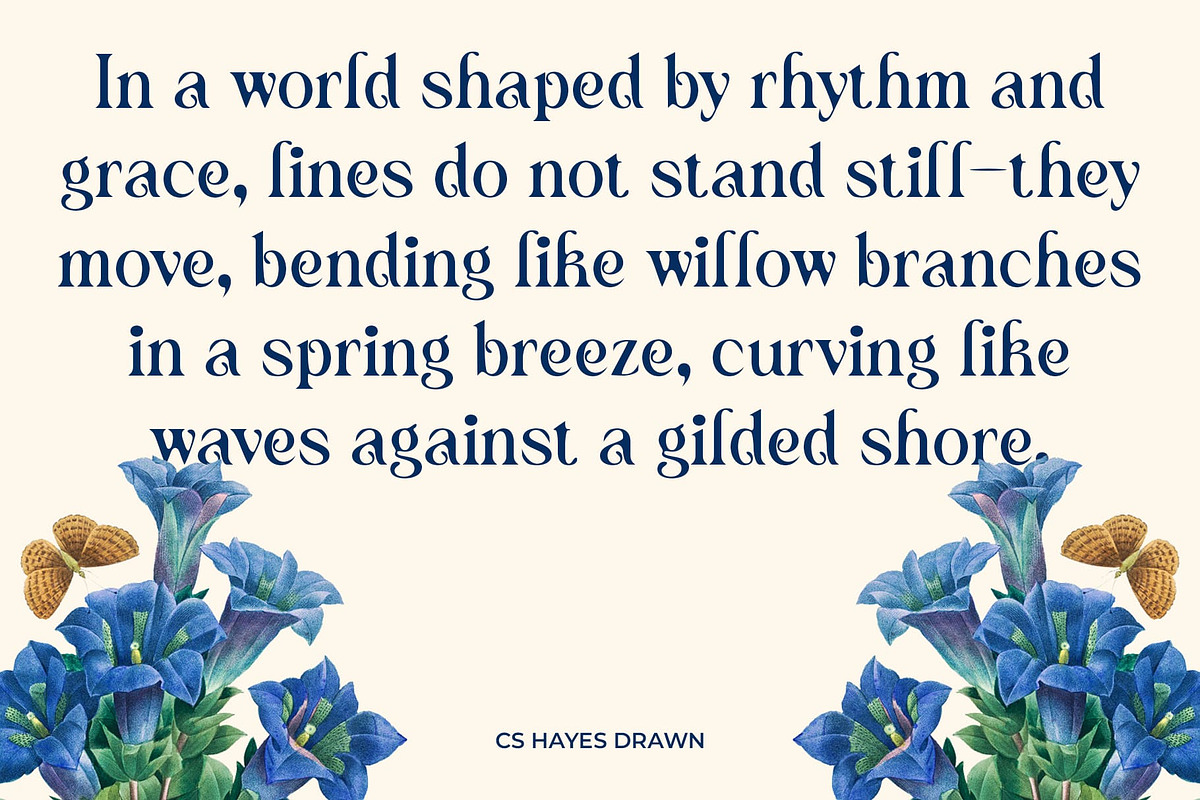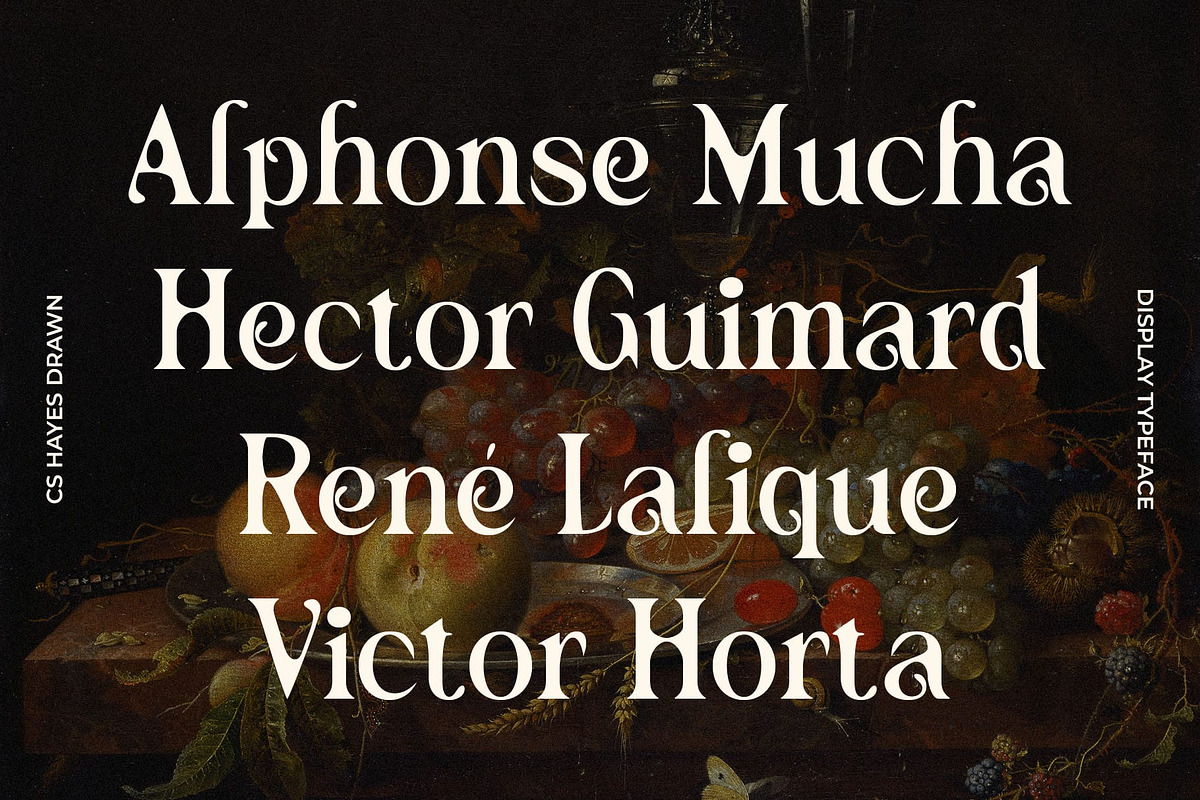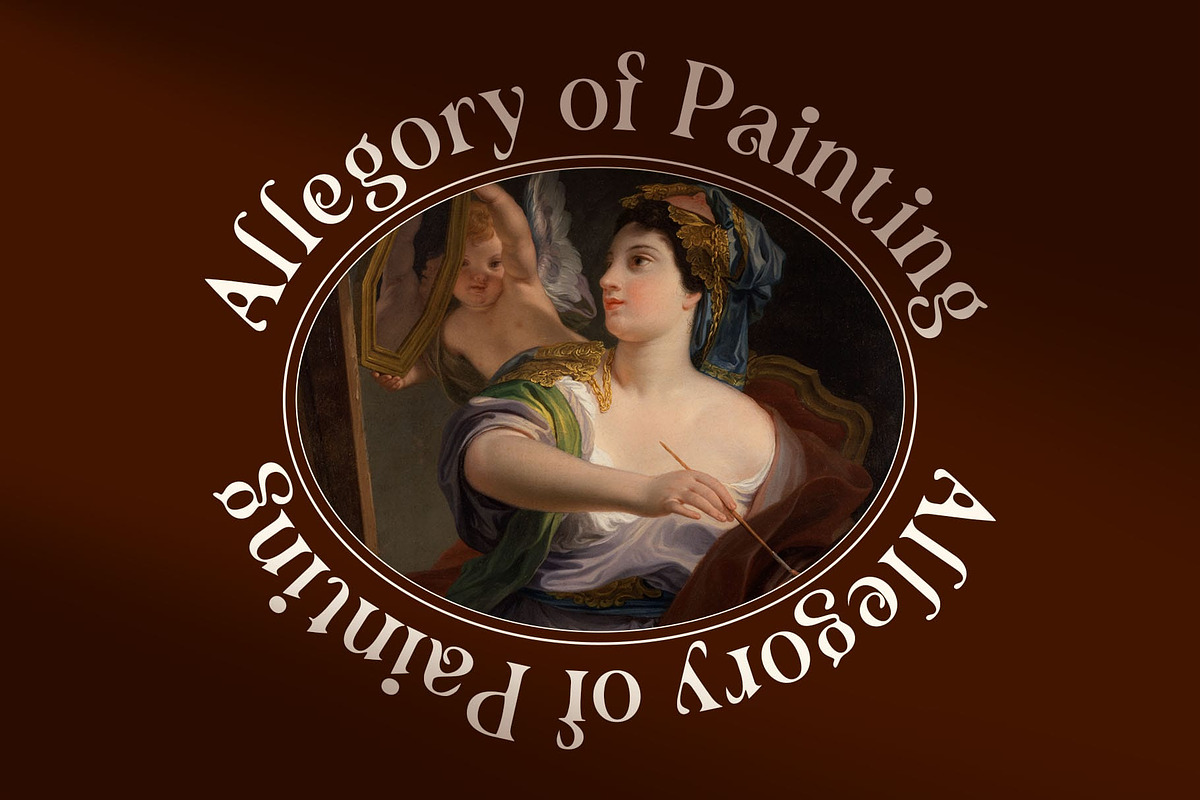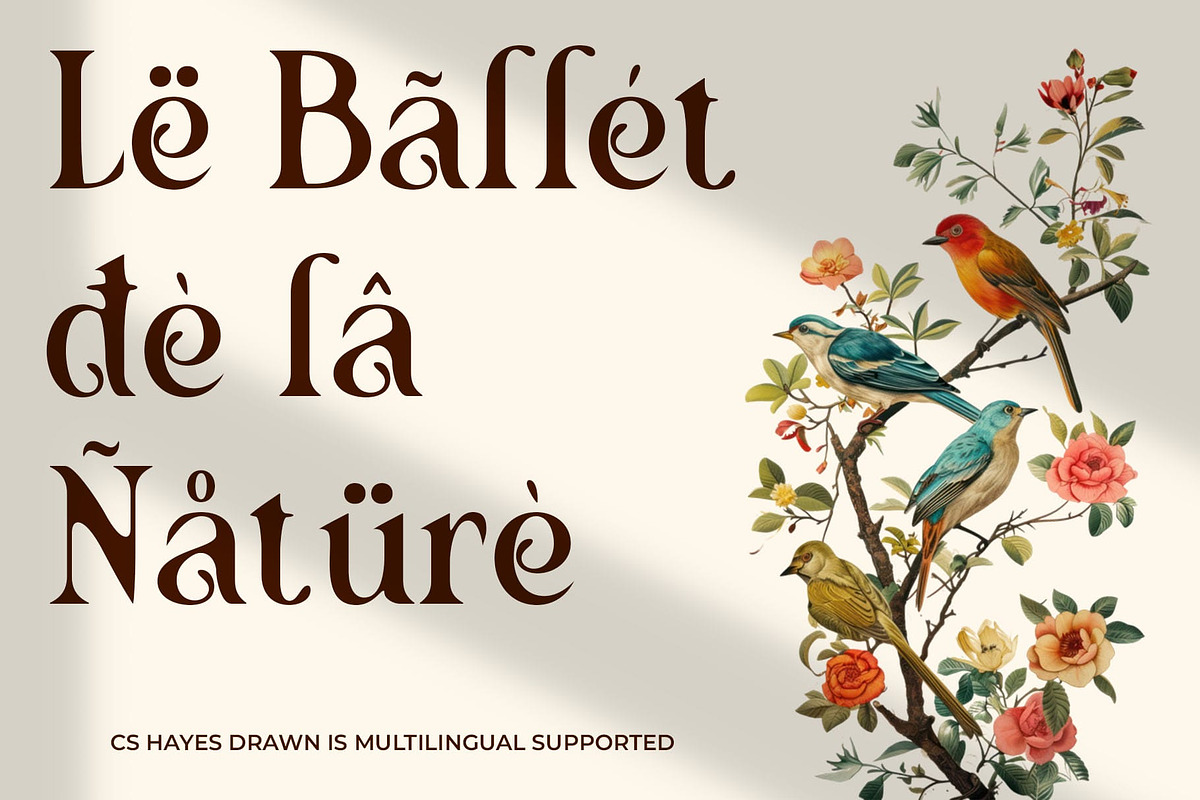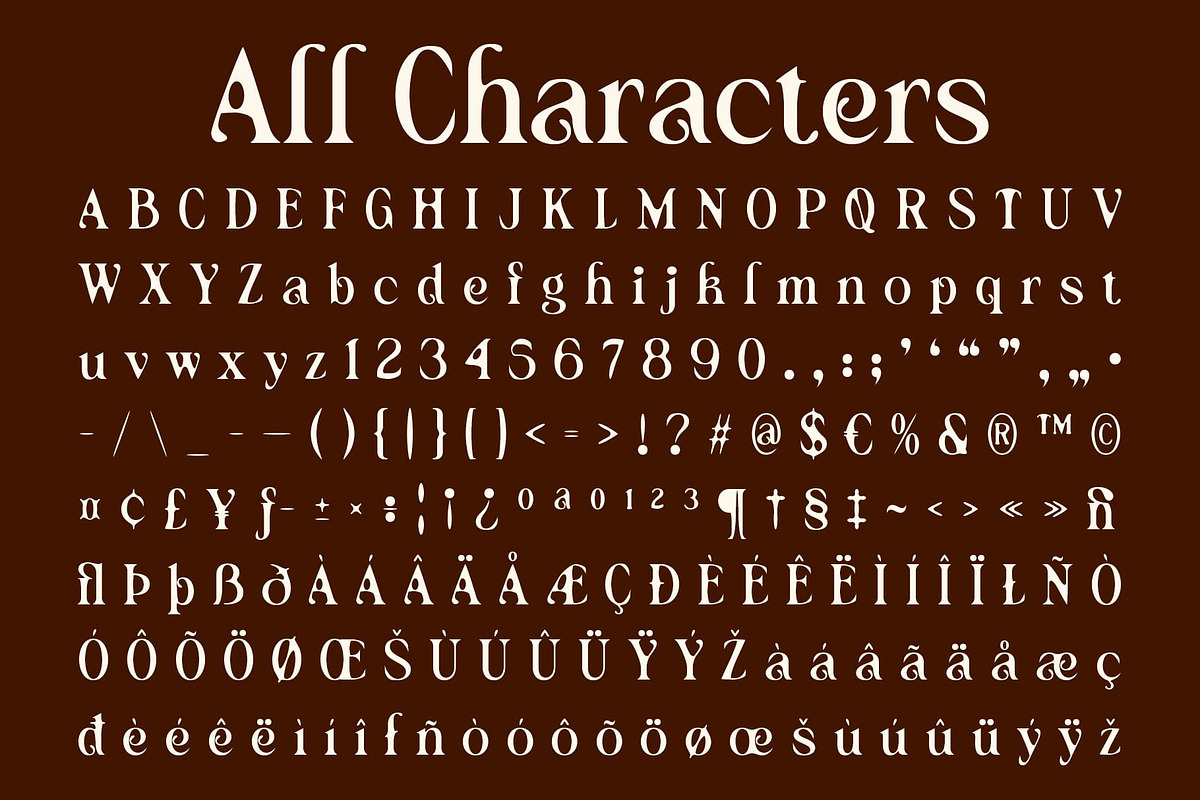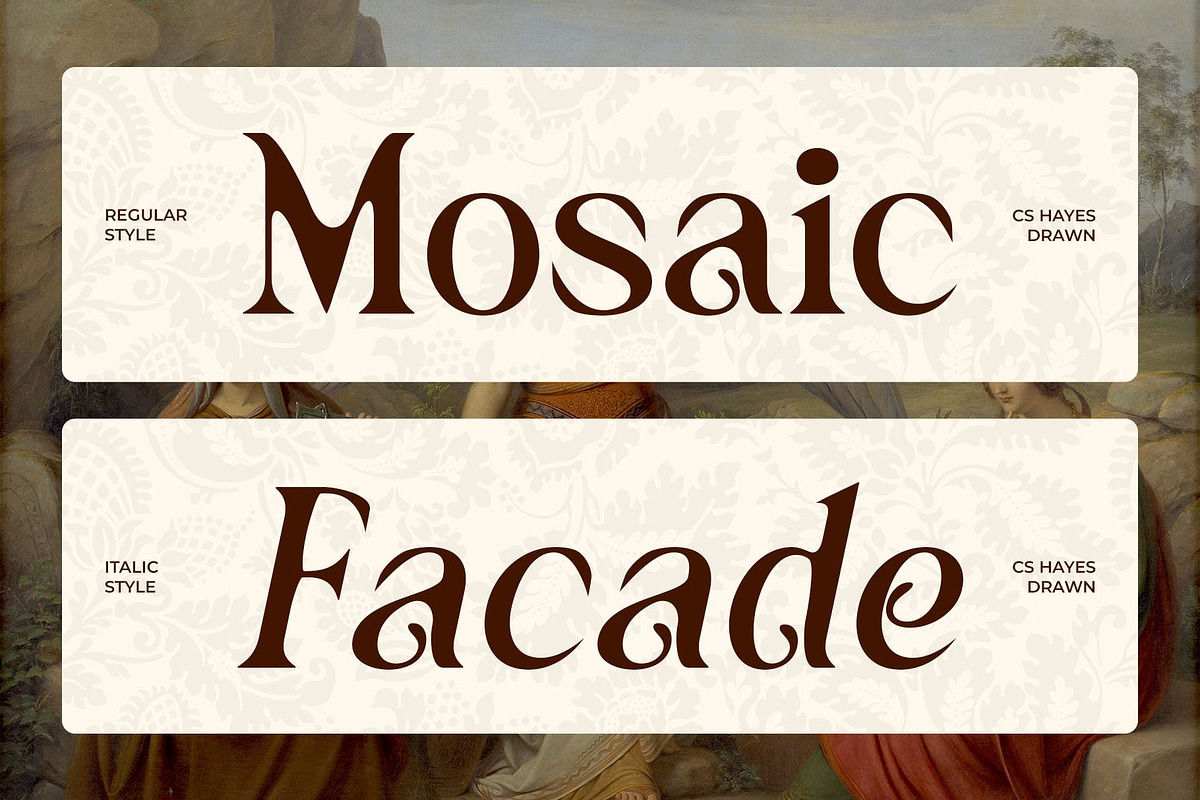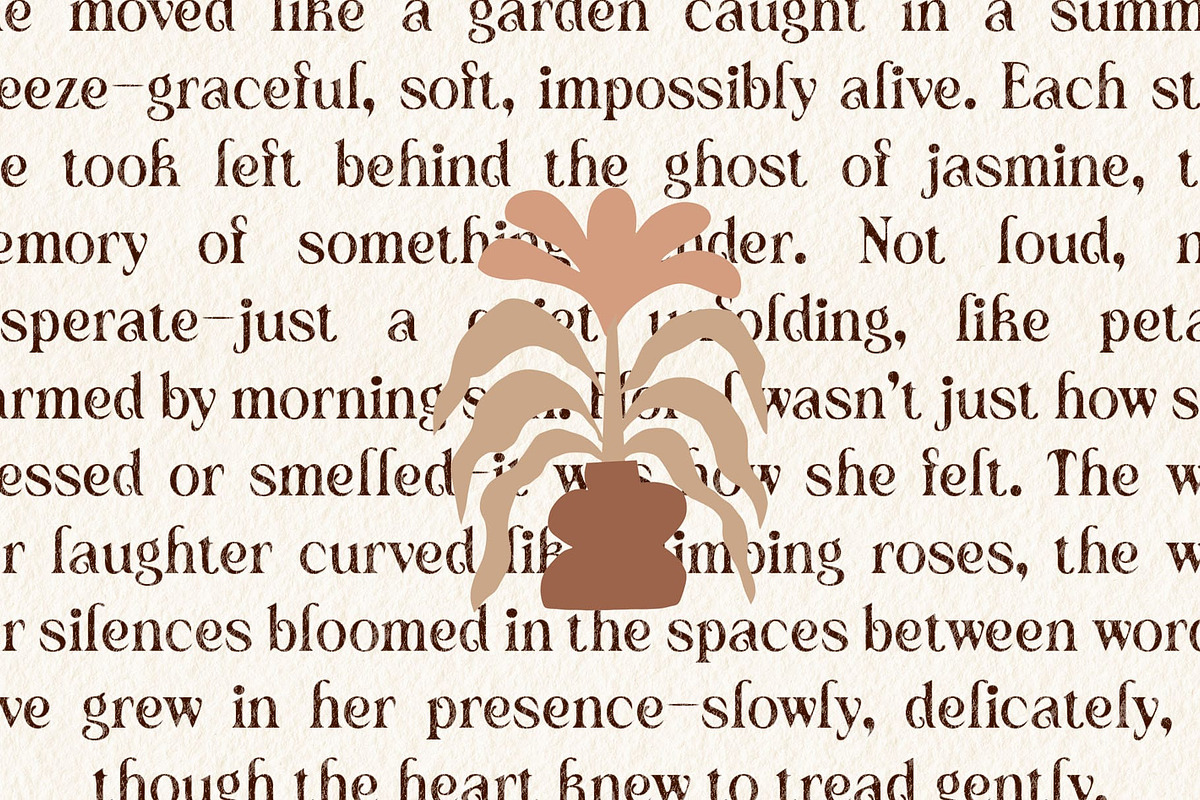
CS Hayes Drawn
CS Hayes Drawn: Art Nouveau-Inspired Modern Serif Font
Elegant Artistry Meets Contemporary Typography This is a modern serif display font that gracefully bridges the timeless charm of Art Nouveau with a fresh, contemporary edge. Its letterforms are marked by flowing curves, decorative details, and well-balanced proportions—delivering a visual harmony that feels both classic and modern.
Refined Serifs with a Hand-Drawn Touch Every character features delicate serifs and elegant curves inspired by nature and ornamental design. The subtle drawn effect adds an artisanal, hand-sketched quality that softens the overall appearance, giving it a warm, personal, and almost ethereal beauty.
Luxurious, Feminine, and Expressive This font is perfect for creative projects that require a refined aesthetic—such as high-end fashion branding, editorial layouts, boutique packaging, and exclusive event invitations. Its combination of sophistication and personality allows it to convey elegance with expressive flair.
A Display Font with Character and Style This feminine and graceful font is not just a typeface—it’s a statement. Ideal for fashion designers, lifestyle brands, editorial teams, and creatives in need of a refined display font, CS Hayes Drawn is the go-to choice for projects that aim to be seen, remembered, and admired. Let this Art Nouveau-inspired typeface bring both grace and substance to your next creative endeavor.